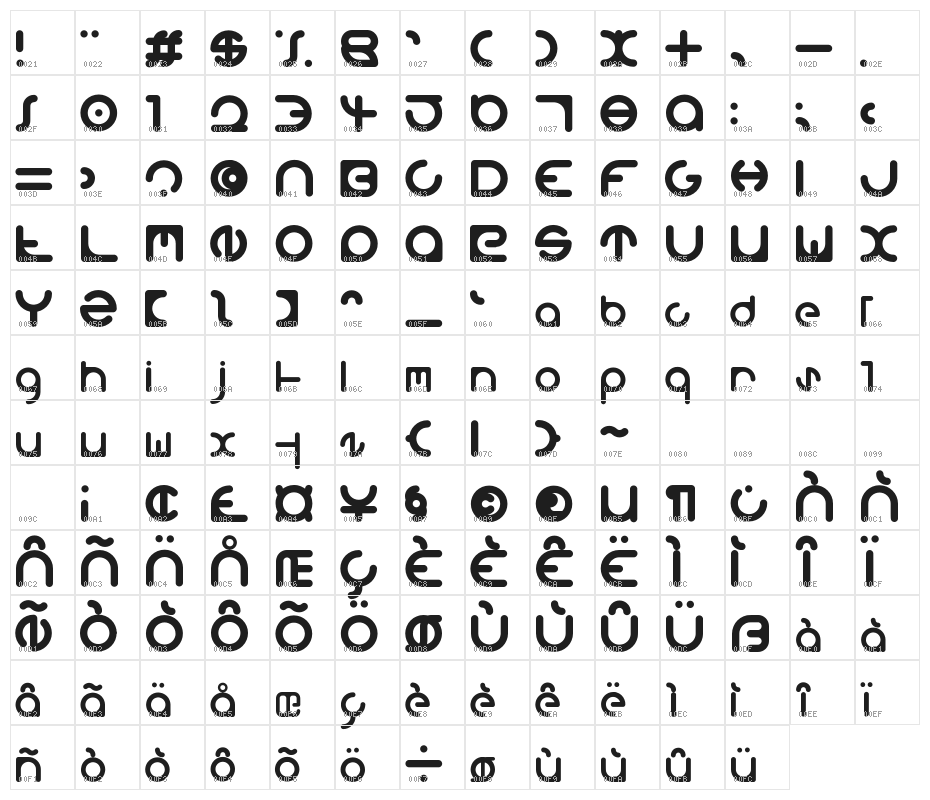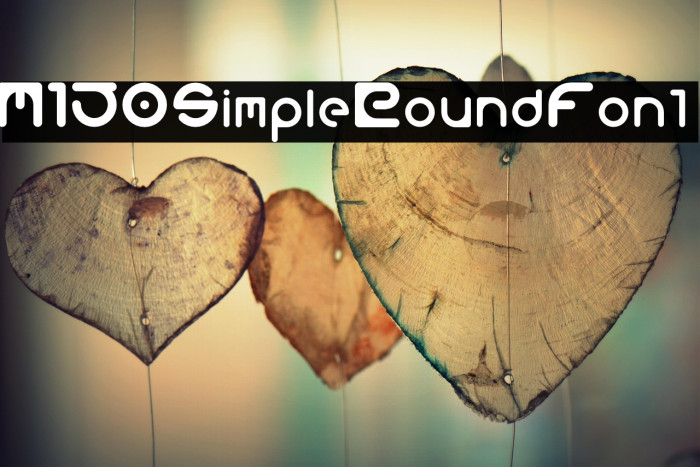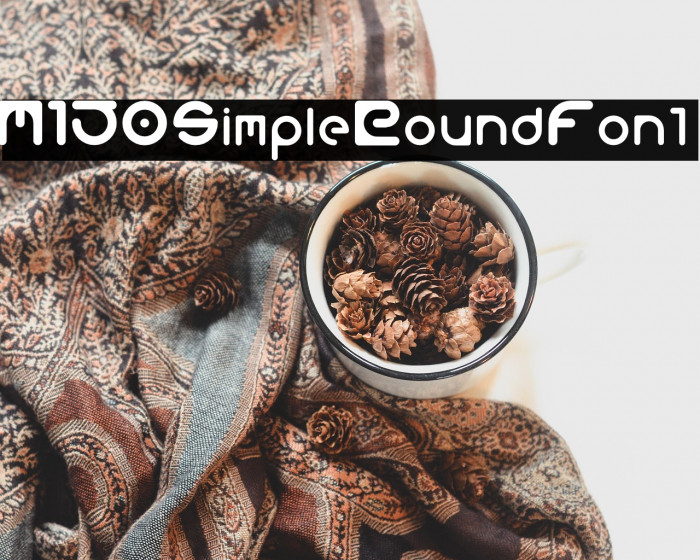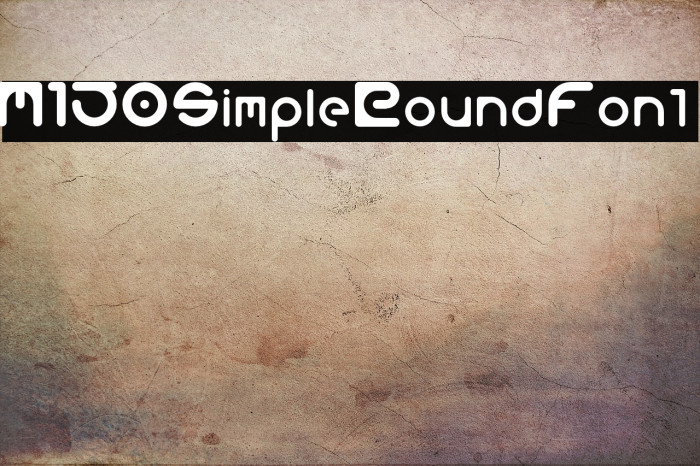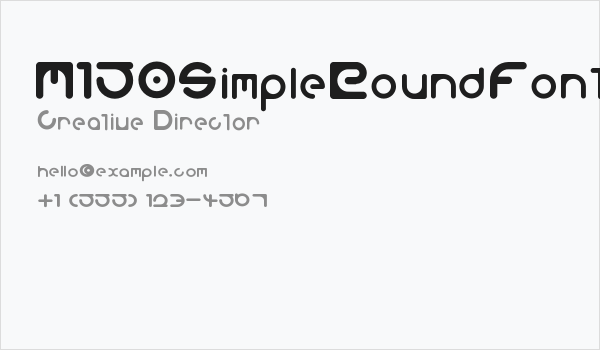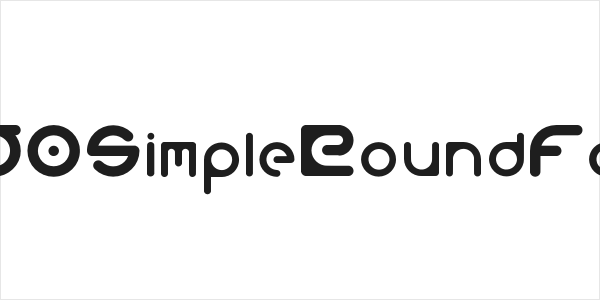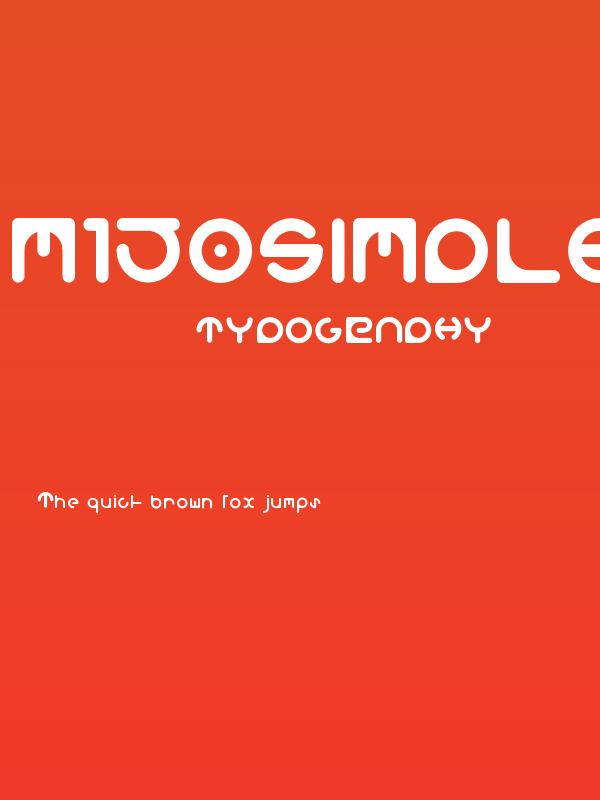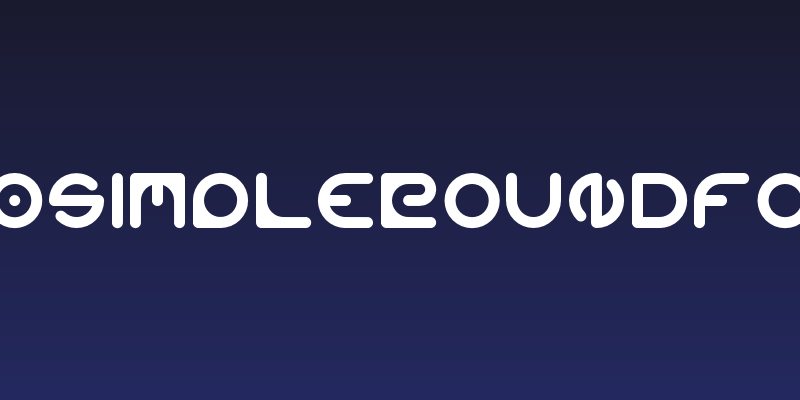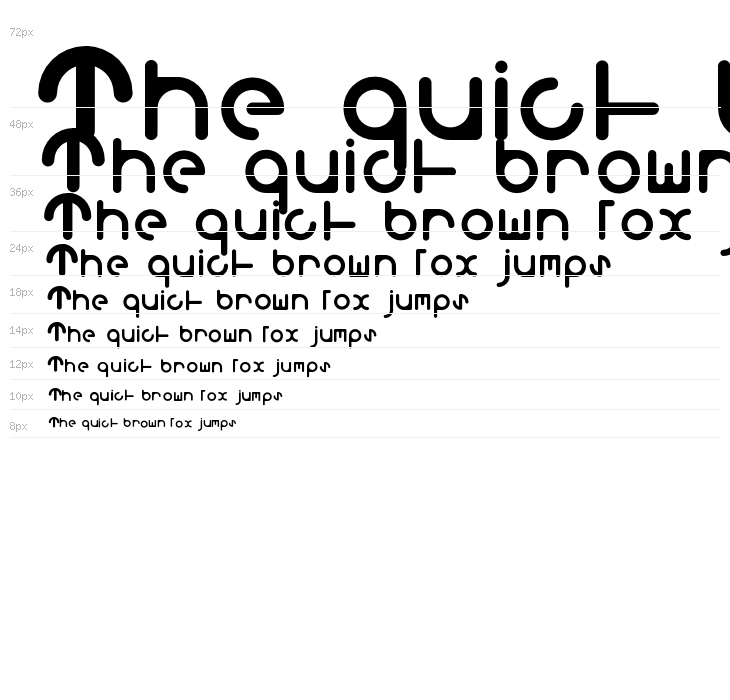
M150SimpleRoundFont Font
M150SimpleRoundFont Description
This font features a modern, rounded style with a playful and futuristic aesthetic. Each character is crafted with smooth curves and a consistent stroke width, giving it a bold and cohesive appearance. The letters are designed with a unique geometric flair, where certain characters incorporate unexpected angles and cuts, adding to its distinctive look. The font maintains a uniform weight throughout, ensuring readability while still offering a creative twist. Its rounded edges and clean lines make it suitable for a variety of design applications, from digital interfaces to print media.
| Use Case | Logos, Headlines, Posters |
| Proposed Projects | Ideal for tech branding, digital interfaces, children's books, and creative posters. |